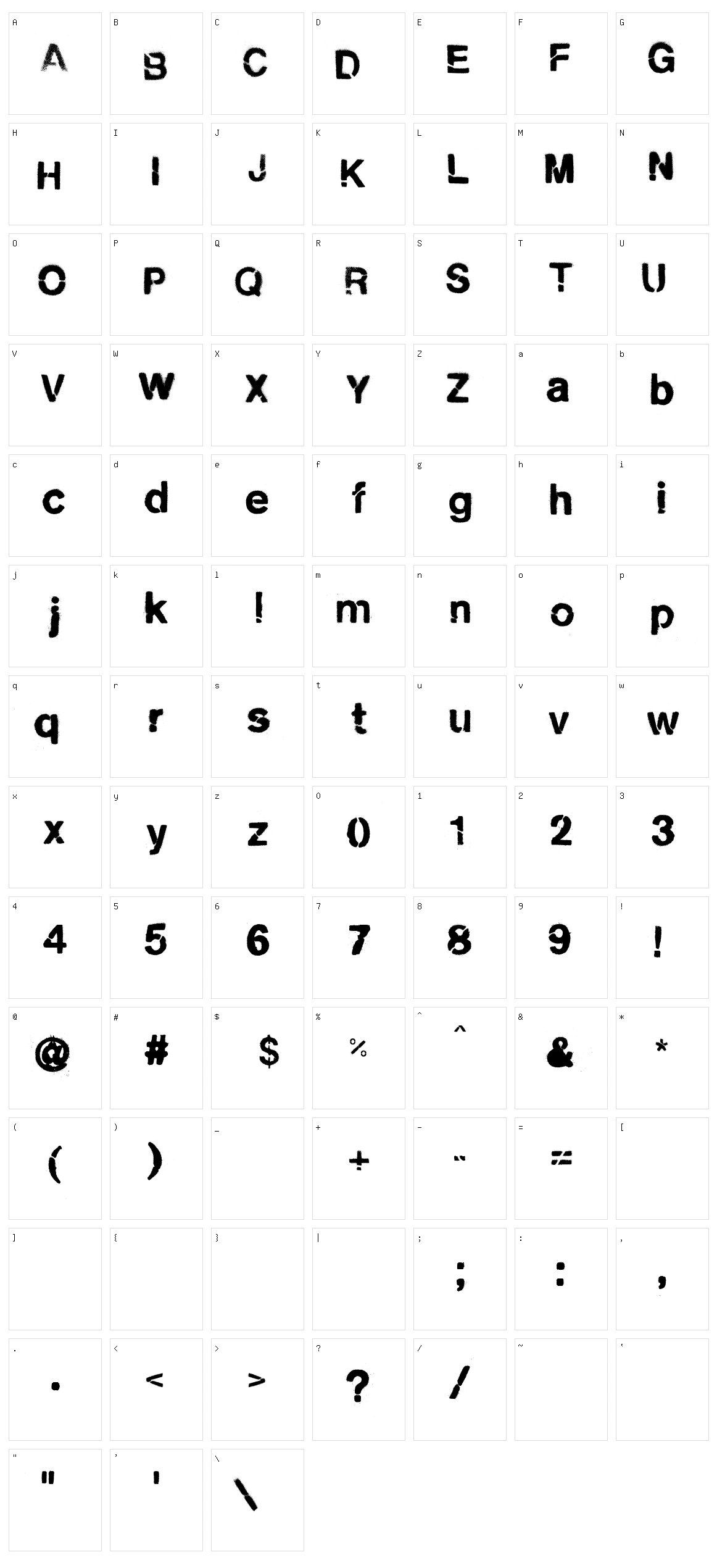
The free font City Burn is carefully designed by alien foundery, showcasing a thoughtful balance of creativity and usability and falls under the Destroy font style. When you download the ZIP file, it contains only 601.56 KB of font files, making it lightweight and quick to download. Please review the license details below to understand permitted usage and distribution rights. If license information is not available, we recommend using this font for personal projects only or contacting the author directly for commercial usage permissions.